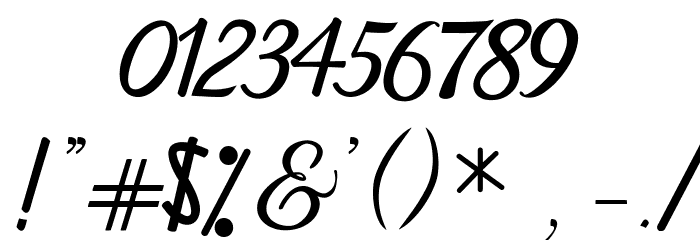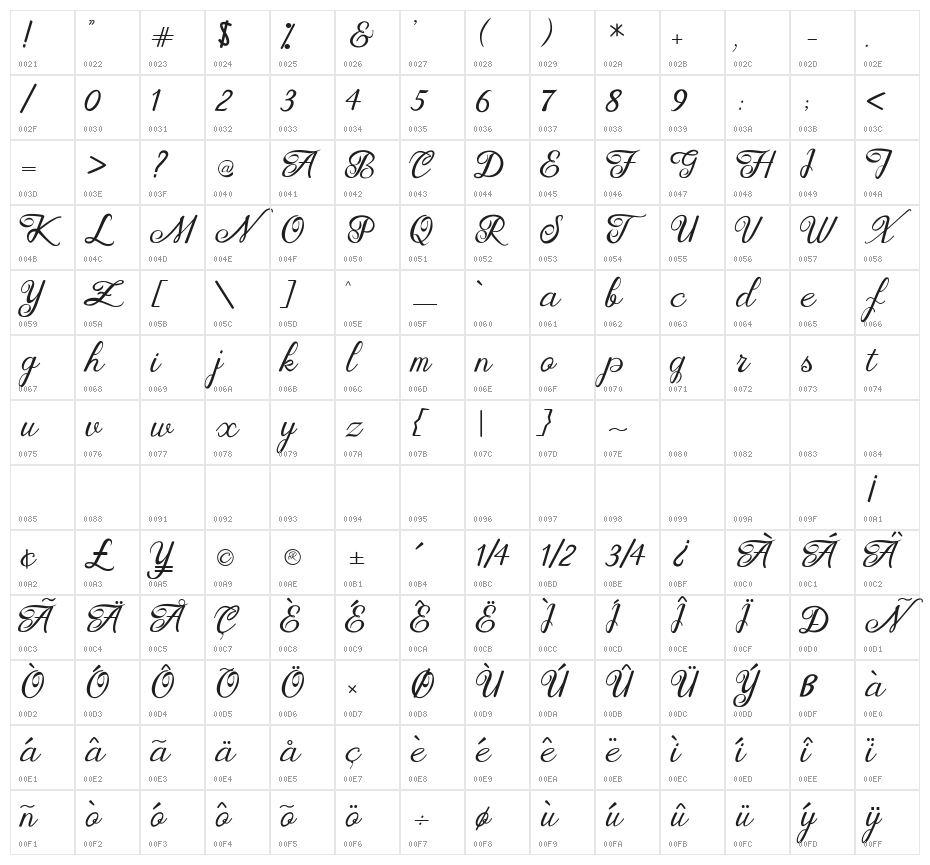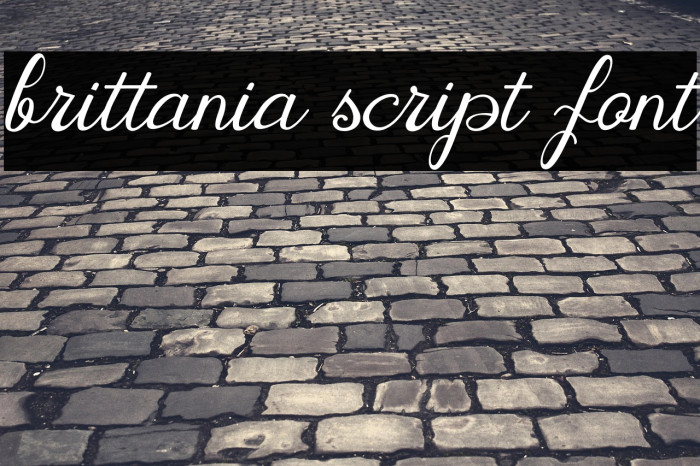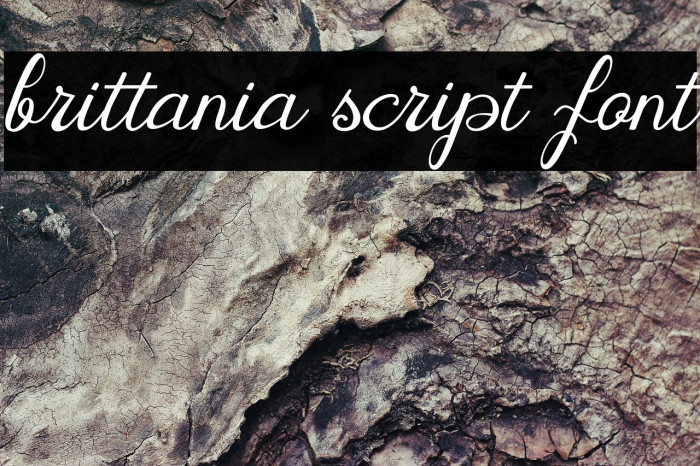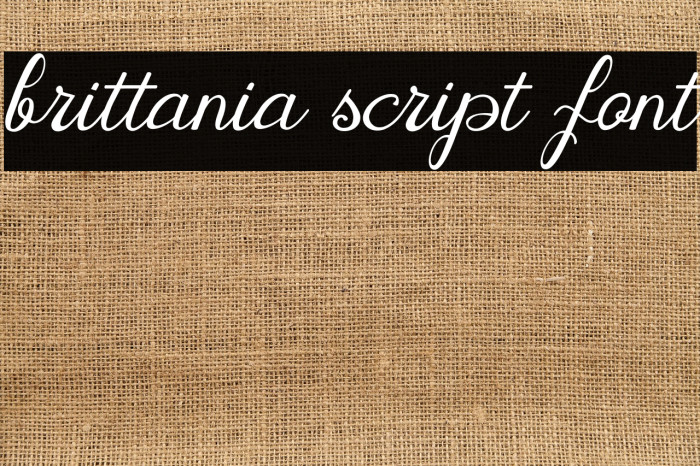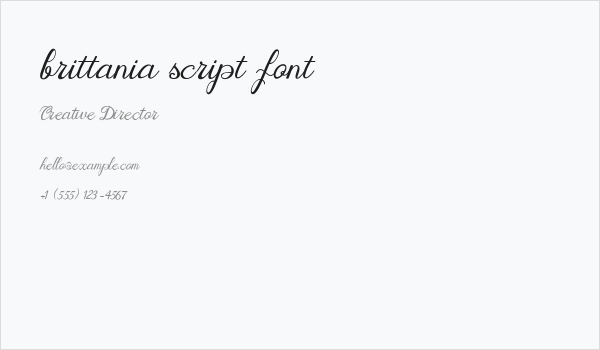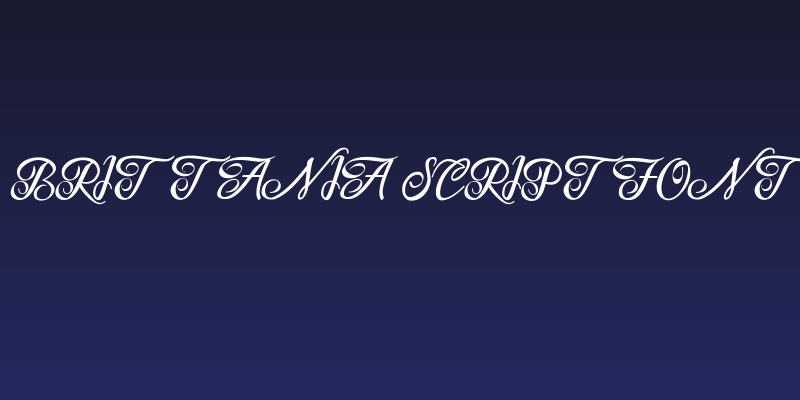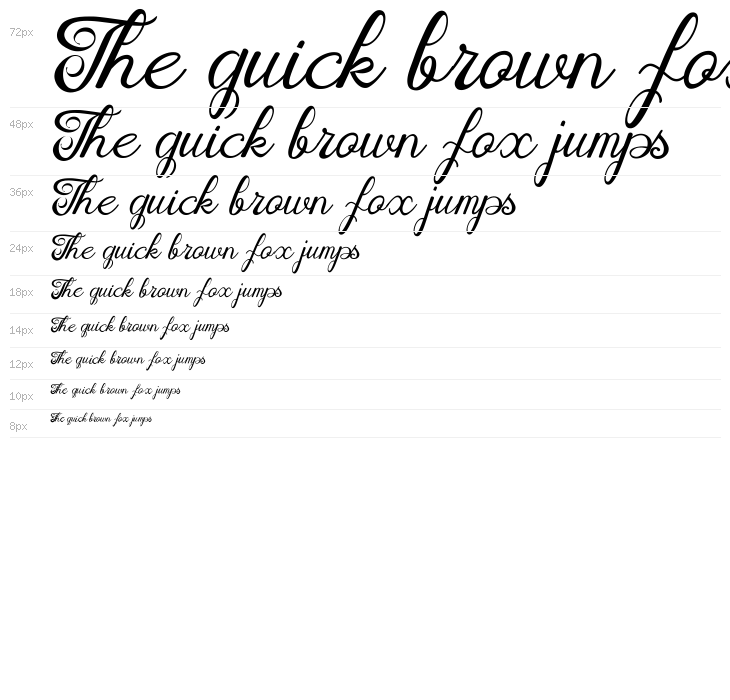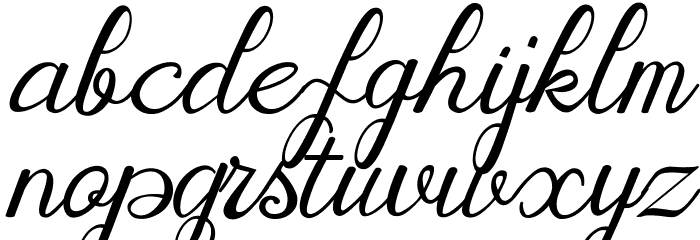
brittania script font Font
brittania script font Description
This elegant script font features a flowing, cursive style with intricate loops and swashes, giving it a sophisticated and graceful appearance. The uppercase letters are ornate, with decorative flourishes that add a touch of luxury and refinement. The lowercase letters maintain a consistent fluidity, enhancing readability while retaining the font's artistic flair. Numbers and special characters are designed with the same attention to detail, ensuring a cohesive look across all elements. This font is ideal for projects that require a touch of elegance and class, such as wedding invitations, formal event programs, or upscale branding materials.
| Use Case | Headlines, Invitations, Branding |
| Proposed Projects | Wedding invitations, formal event programs, upscale branding materials. |